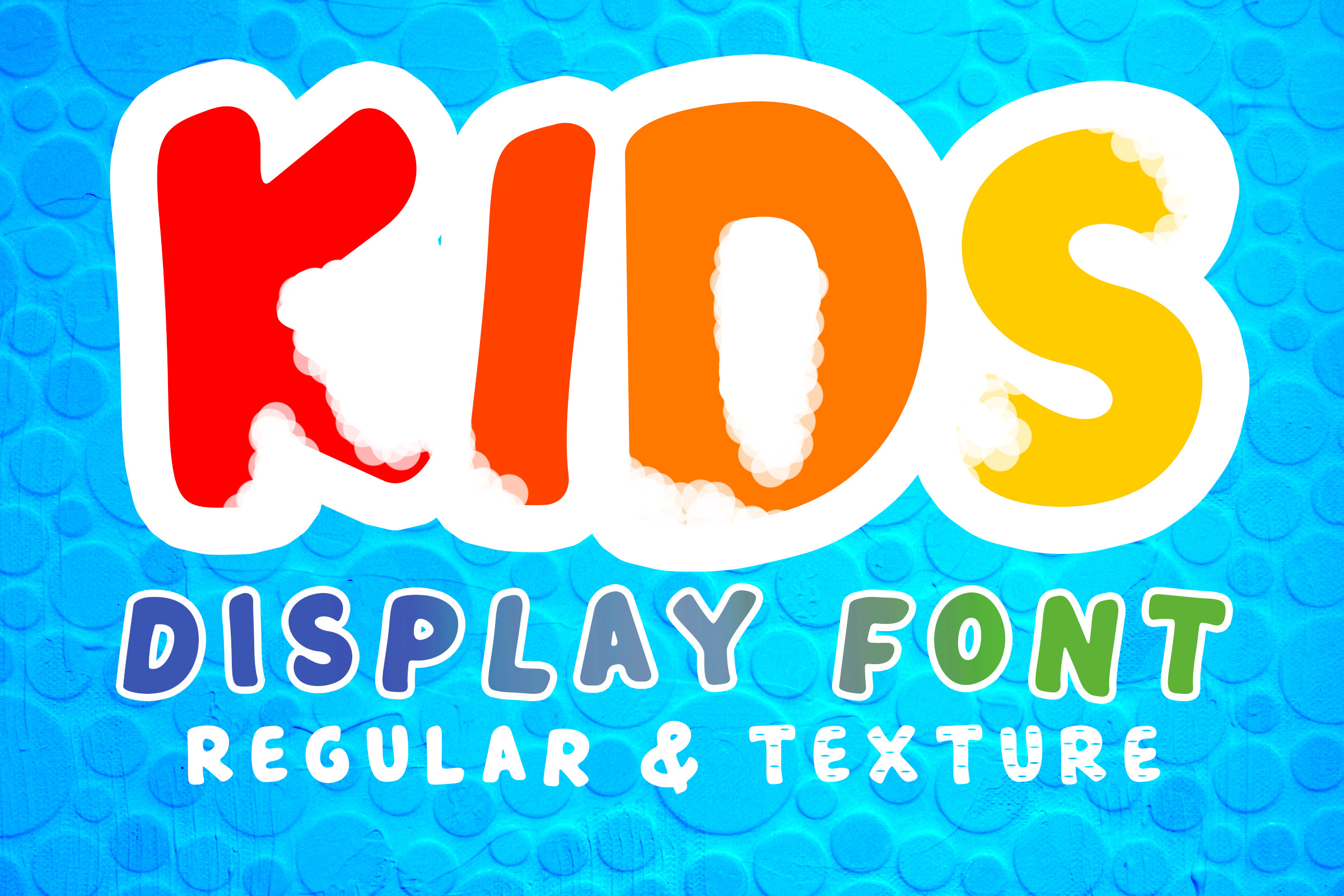
Kids - friendly display font
Kids is a fun and friendly display font. Joyful and bright, this font is perfect for children themed designs, especially when combined with bright colors. This enchanting handwritten font will turn any creative idea into a true standout. Get creative with its childlike playfulness, and use it to brighten up any kids and school project!